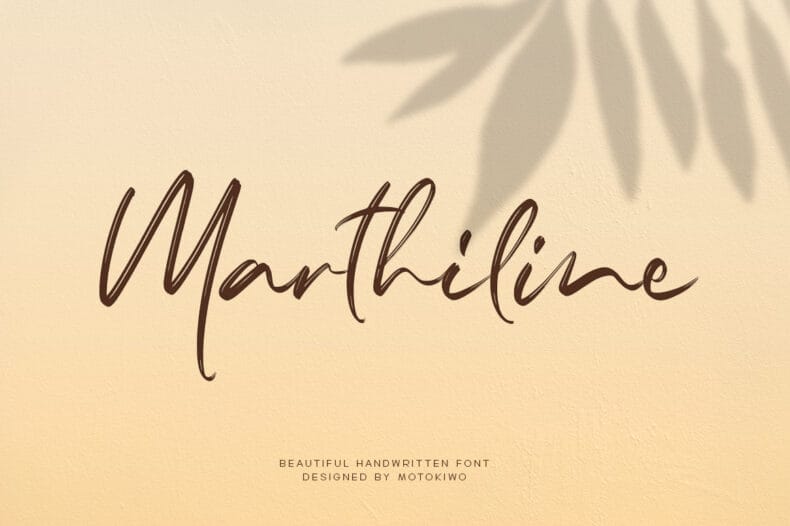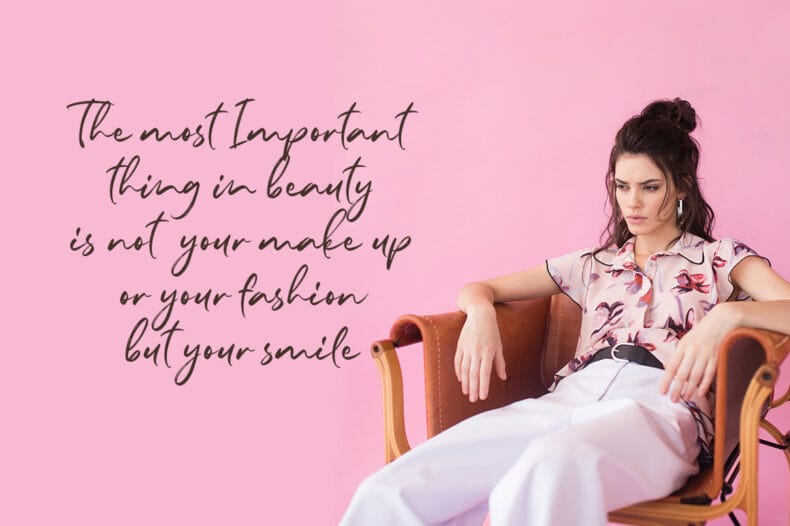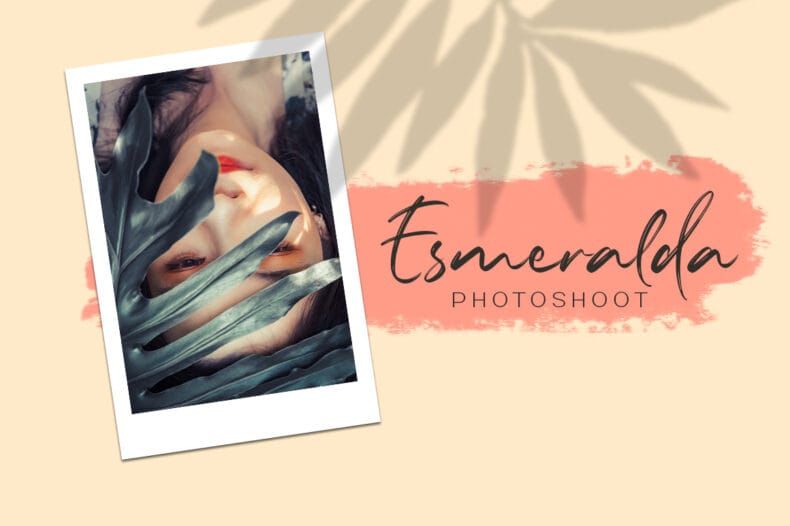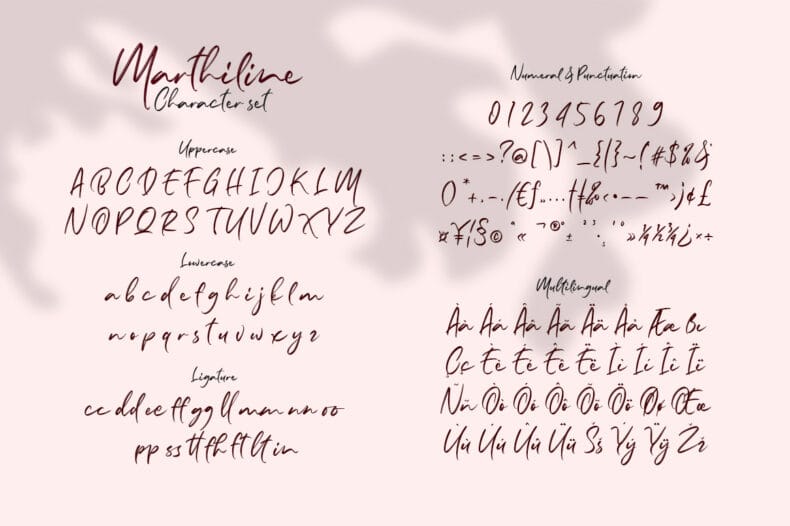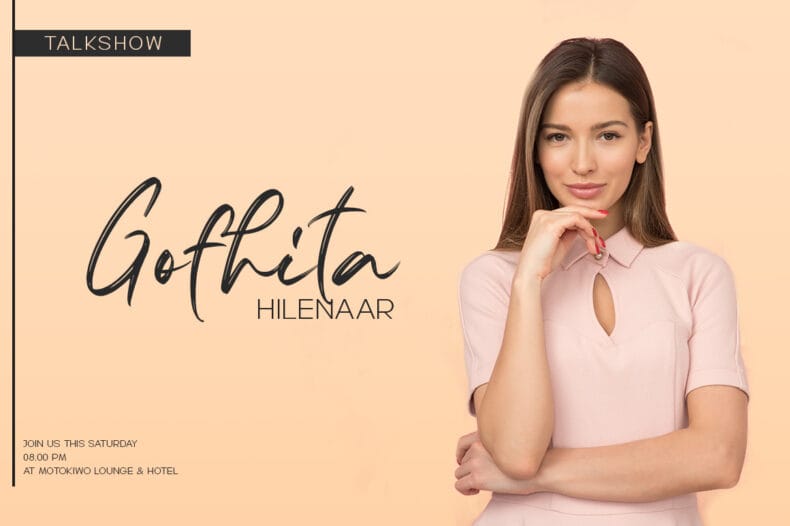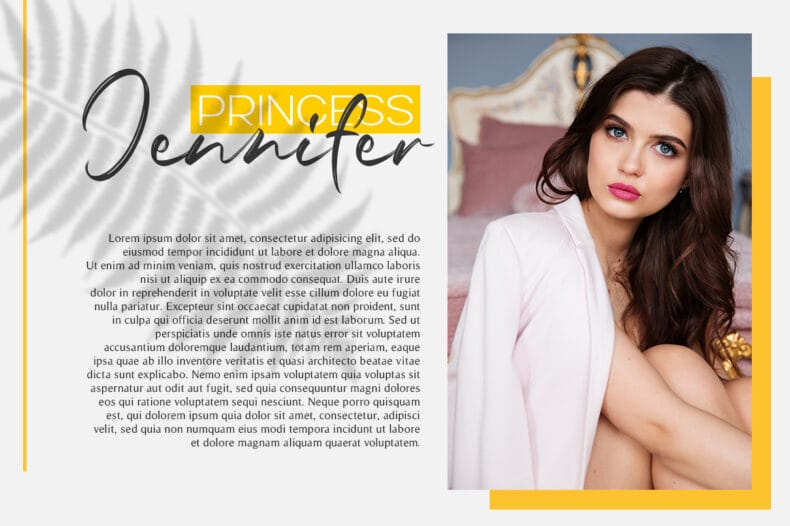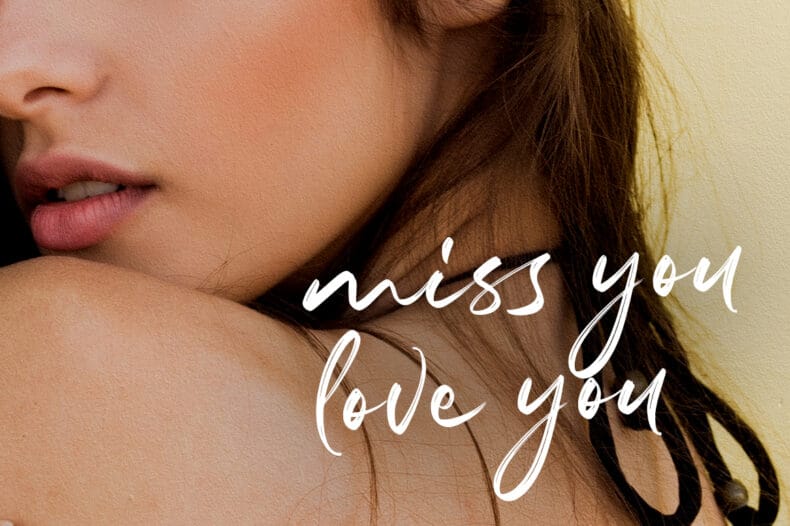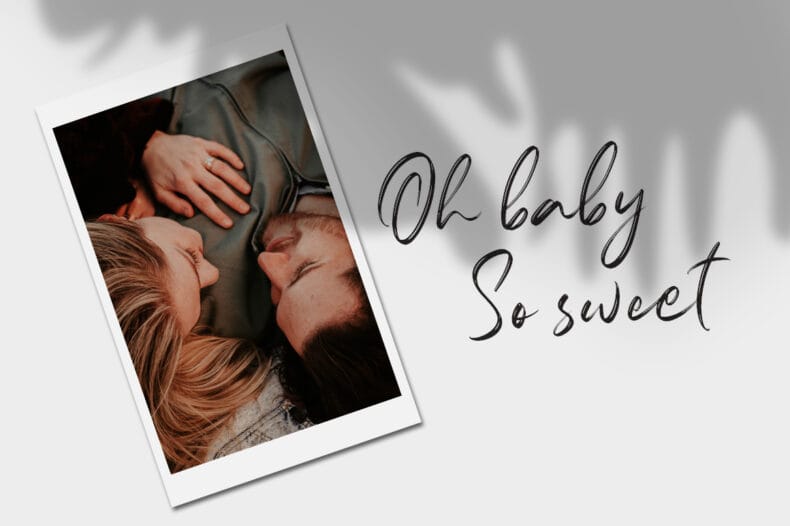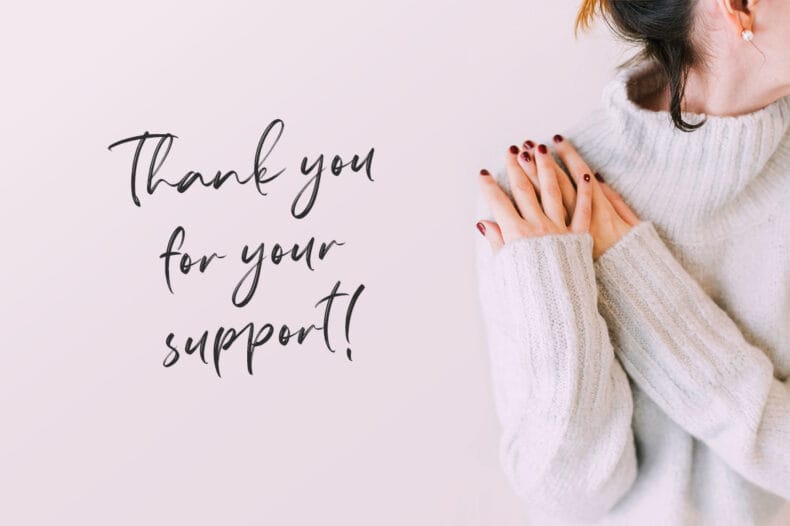
Marthiline, Handwritten Brush Font
Introducing Marthiline: a sweet beauty handwritten font that perfect for beauty branding, book cover, poster, magazine, or quotes.
Marthiline packed with uppercase, lowercase, numeral & punctuation, multilingual and ligature that already PUA encoded. With real brush texture and natural stroke gesture you can use this font stand alone or combine with thin sans serif.